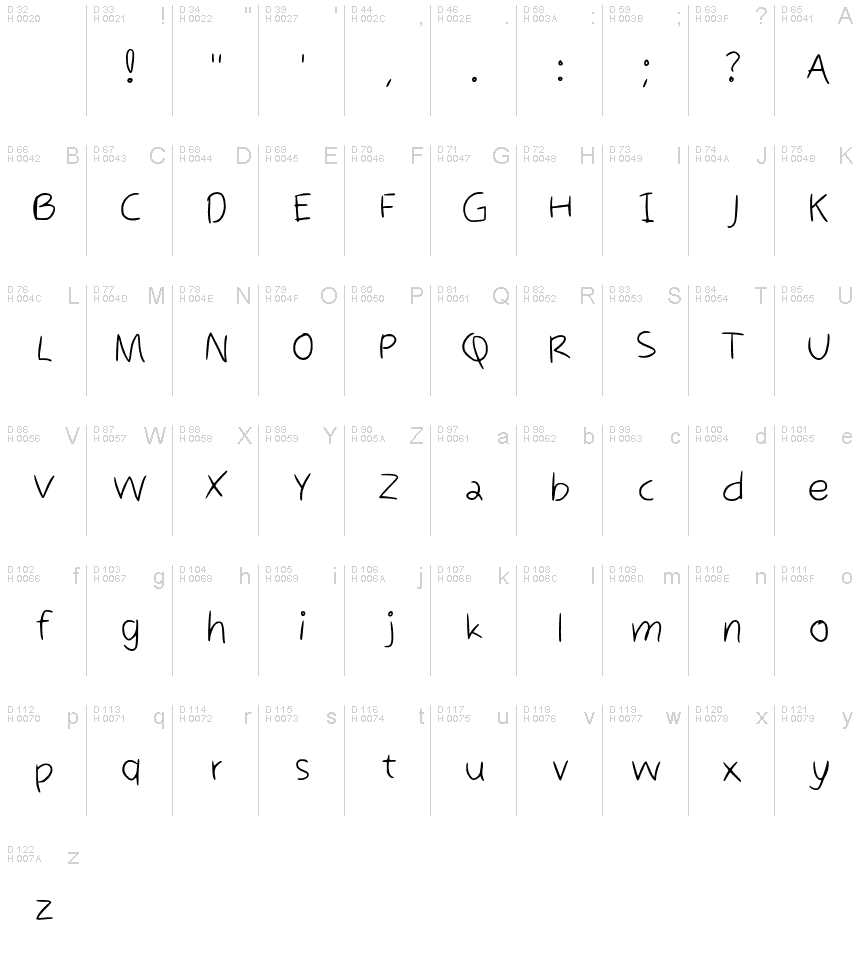
Kindergarten Regular
Kindergarten, a whimsical and playful handwritten font by Lekearls, is perfect for any project that needs a touch of childlike wonder. With its semi-light weight and charmingly imperfect lettering, this font brings a sense of innocence and creativity to any design. Use it for children's book covers, invitations to birthday parties or baby showers, whimsical logos for toy stores or candy shops, or even on school-related materials like posters and flyers. Its unique style will help your project stand out and capture the attention of anyone who sees it. Let Kindergarten bring joy to your next design endeavor!